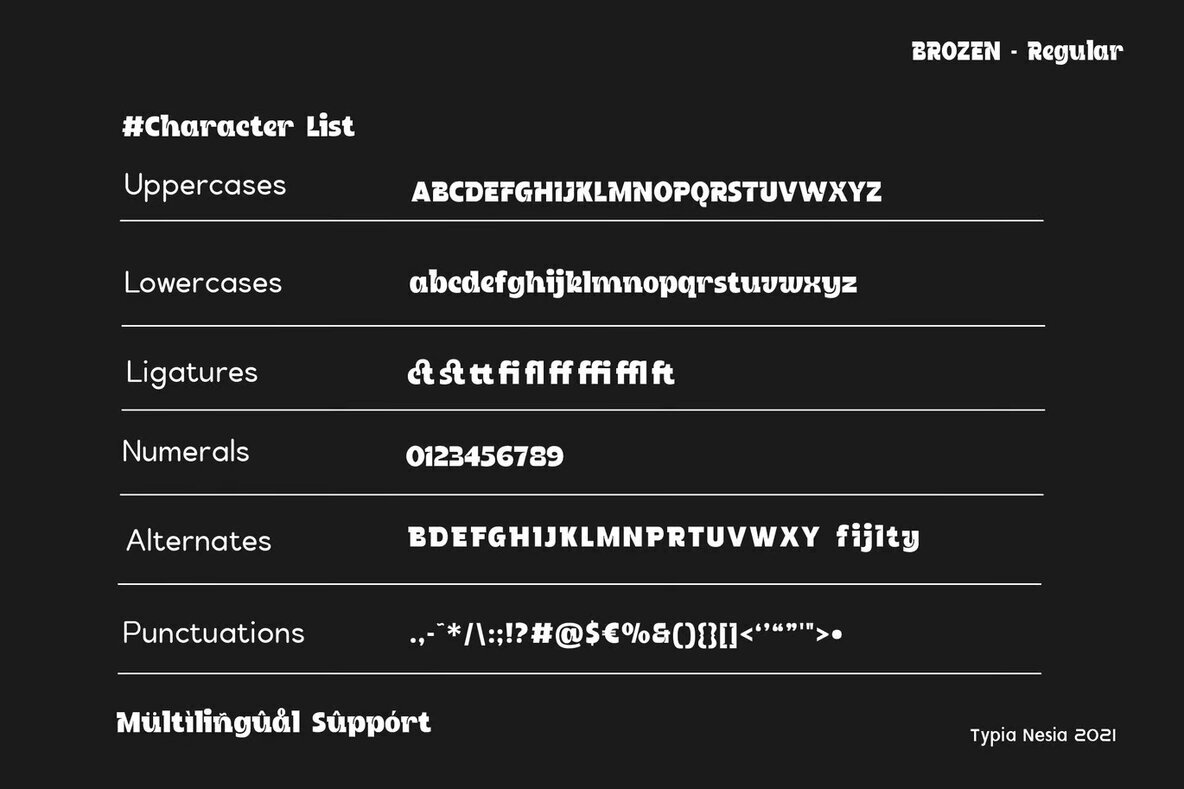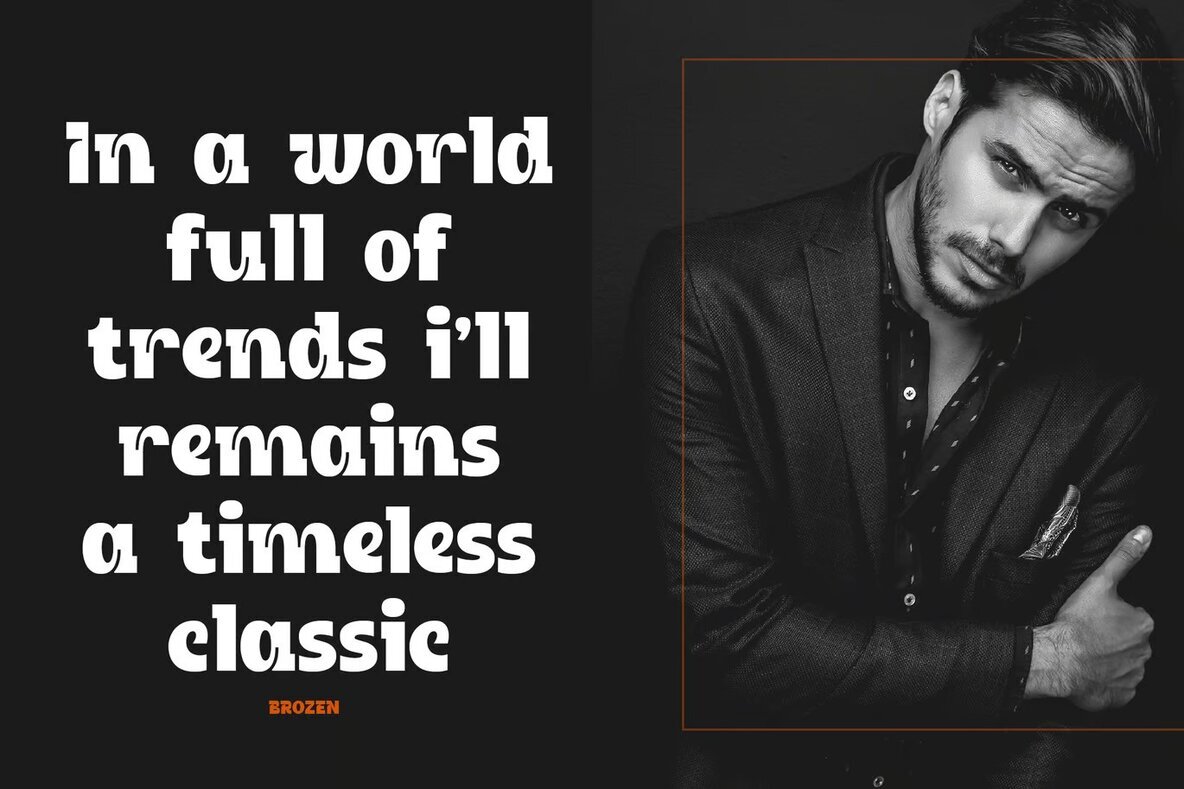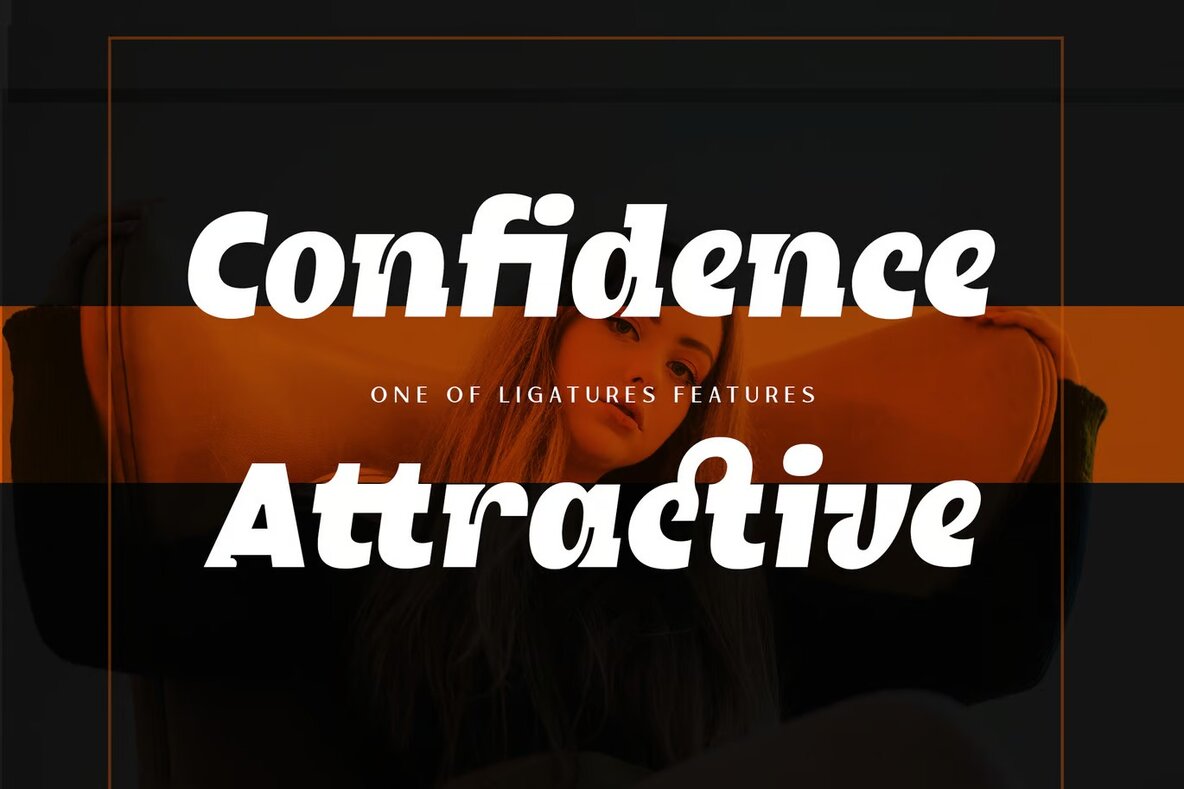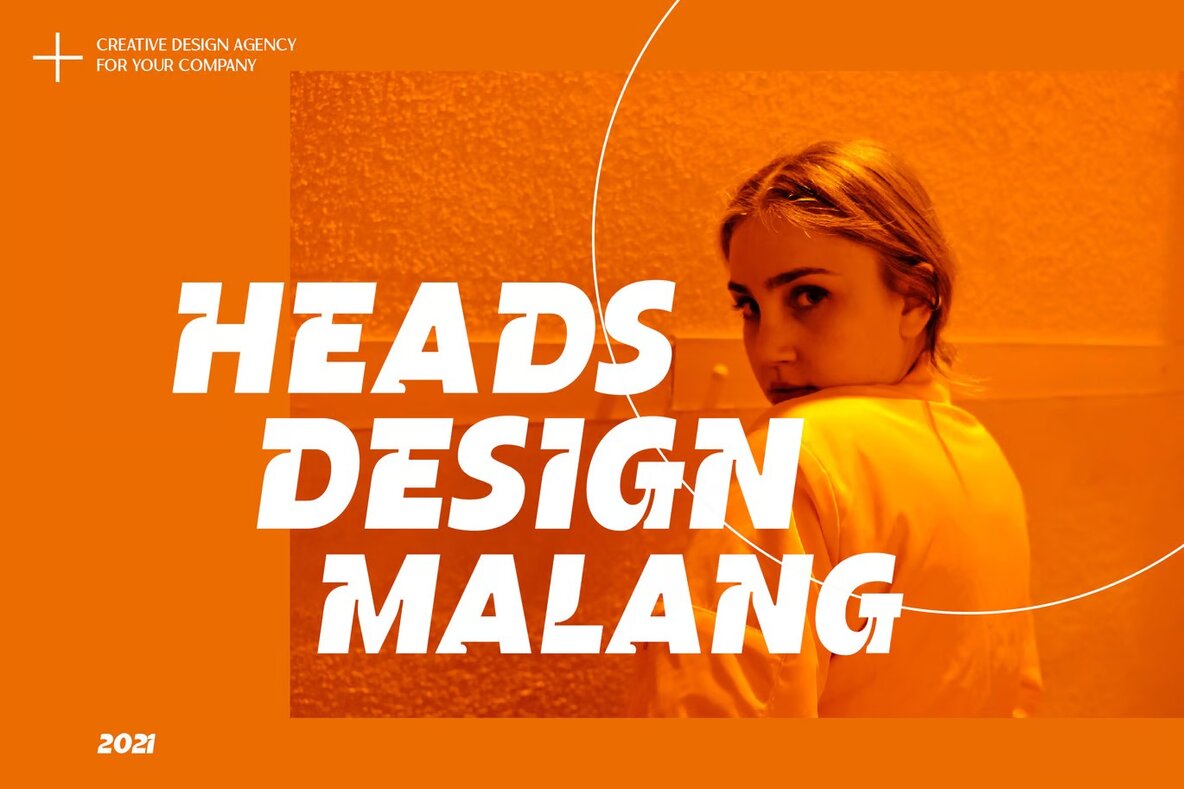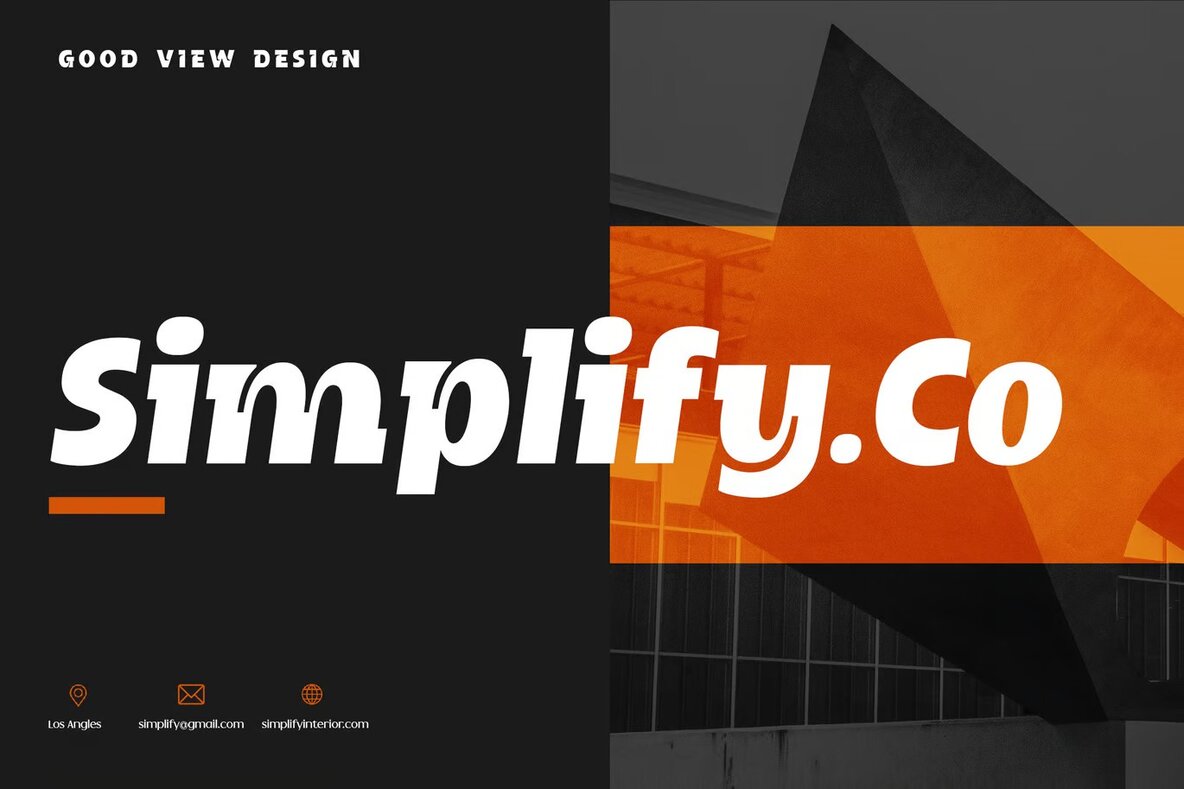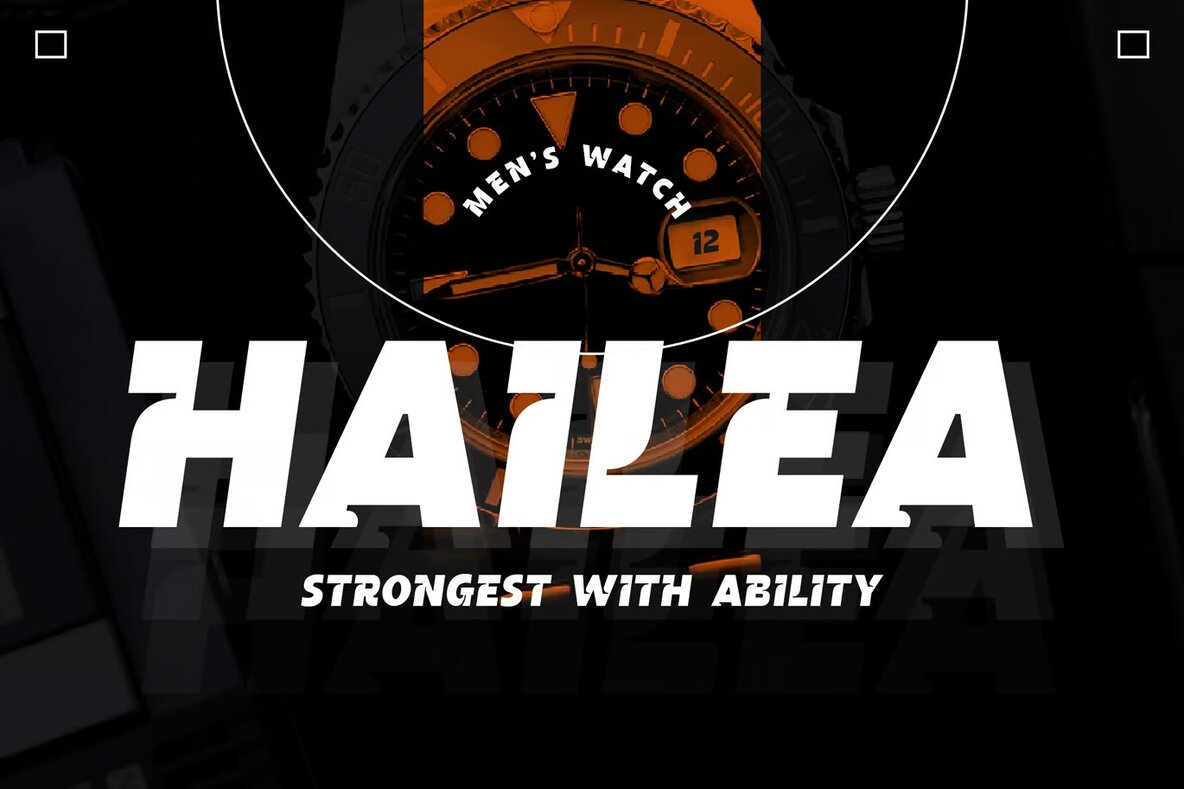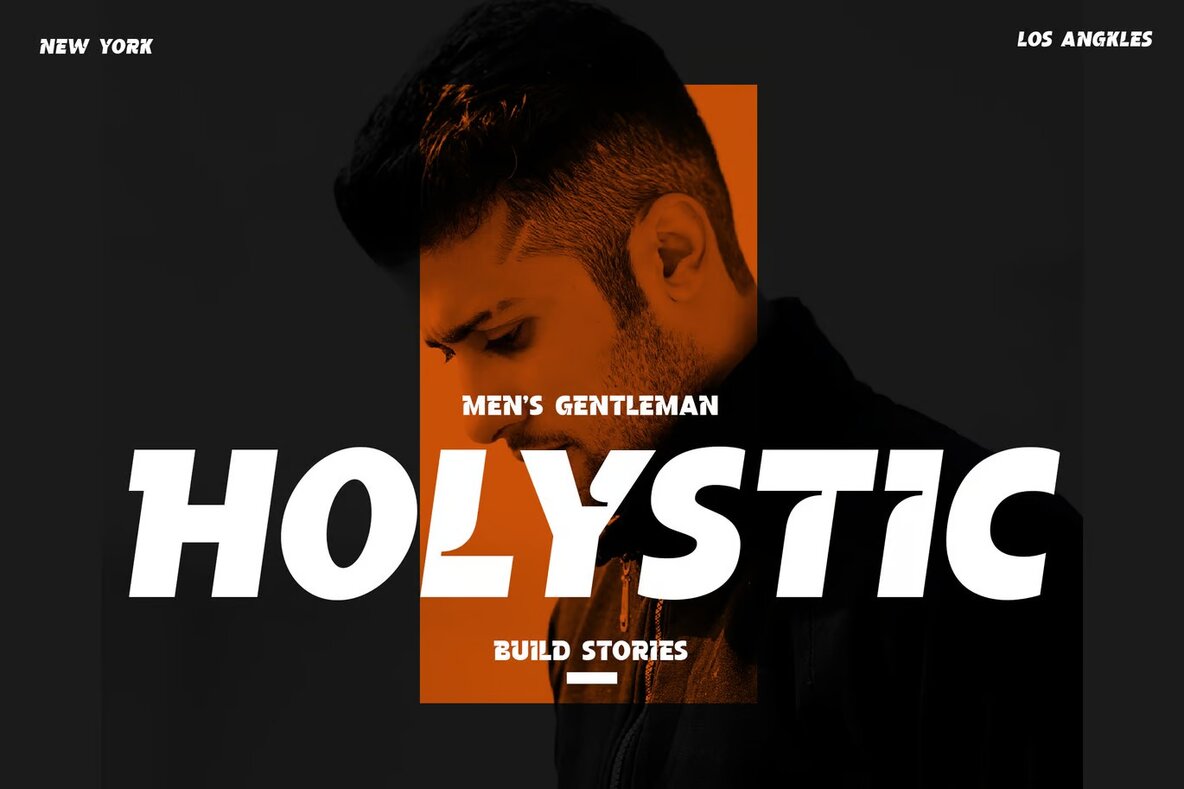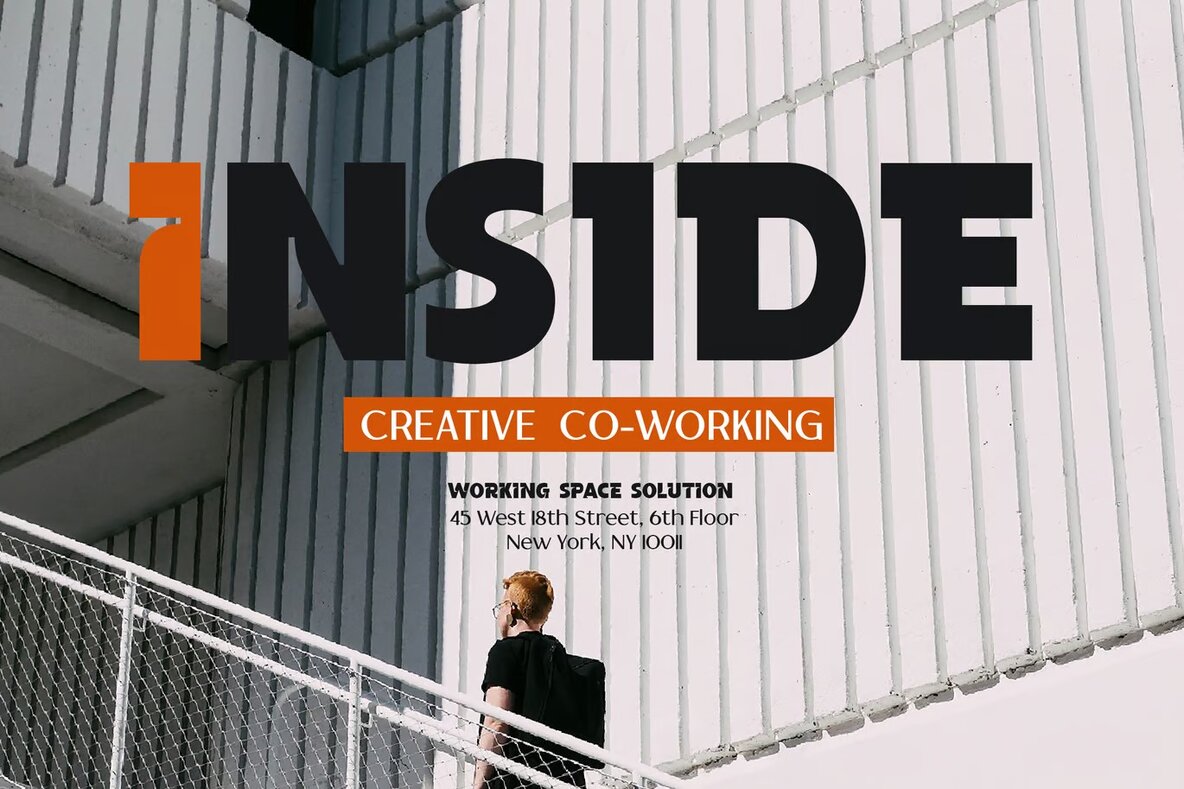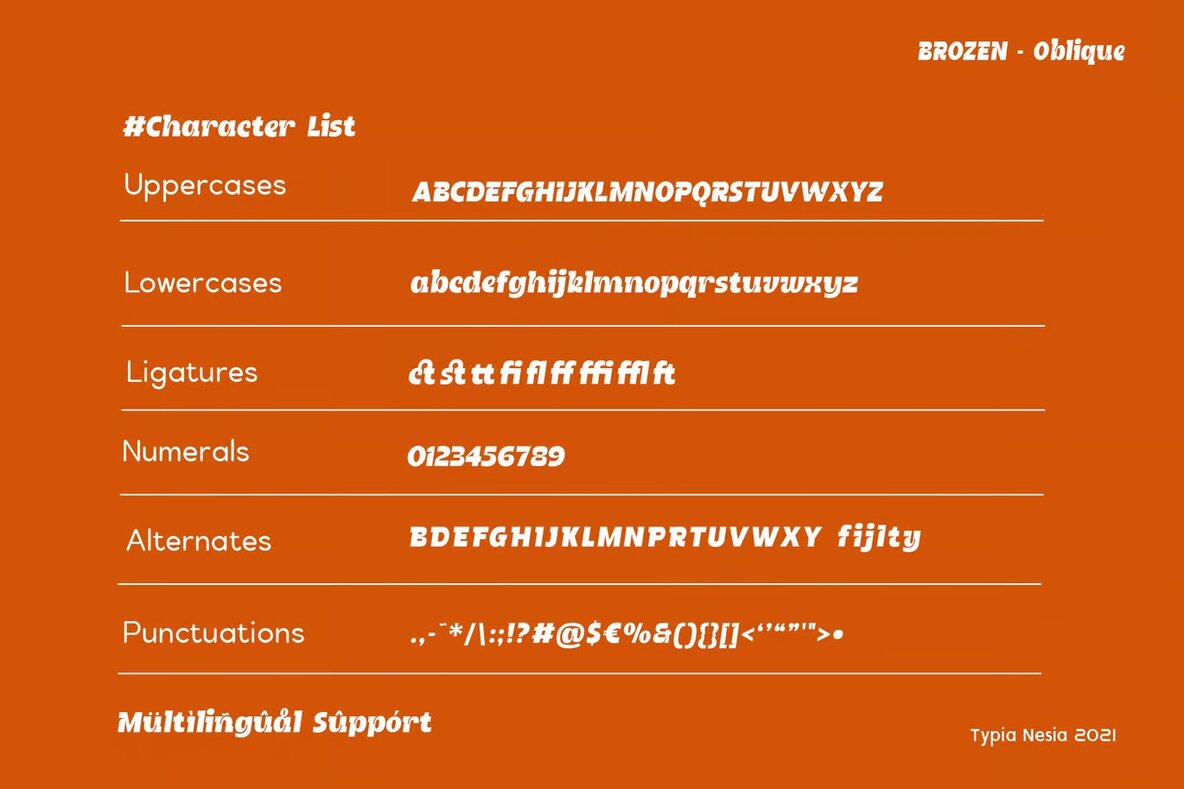
Brozen Font
Brozen Regular
Brozen Oblique
Brozen Sport Racing Game Slab Serif is a bold and dynamic font ideal for various creative projects. Its robust design is perfect for sectors like logo branding, editorial layouts, and esport themes. With an 80s retro flair, it serves the gaming industry effectively, catering to super car brands and sports racing designs. Its versatility extends to modern advertising, music posters, and book cover titles, adding a striking impact to special event visuals as well.
This semi-slab serif font boasts a strong presence, making it a valuable asset for website design and poster quotes. Its sleek and modern look suits esport branding and other visually engaging works. Brozen combines classic serif elements with contemporary aesthetics, offering both functionality and style for designers looking to make a bold statement with their projects.